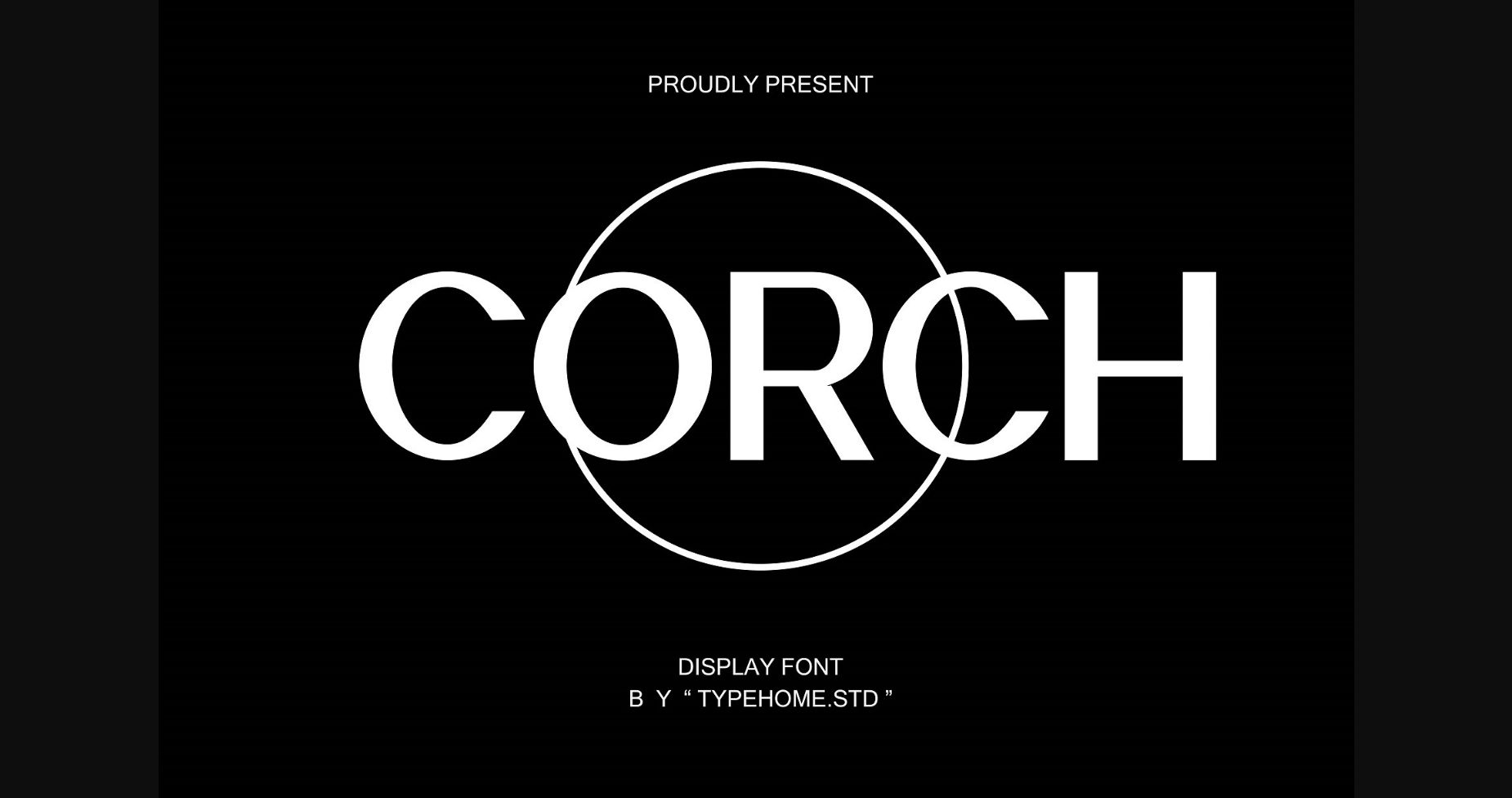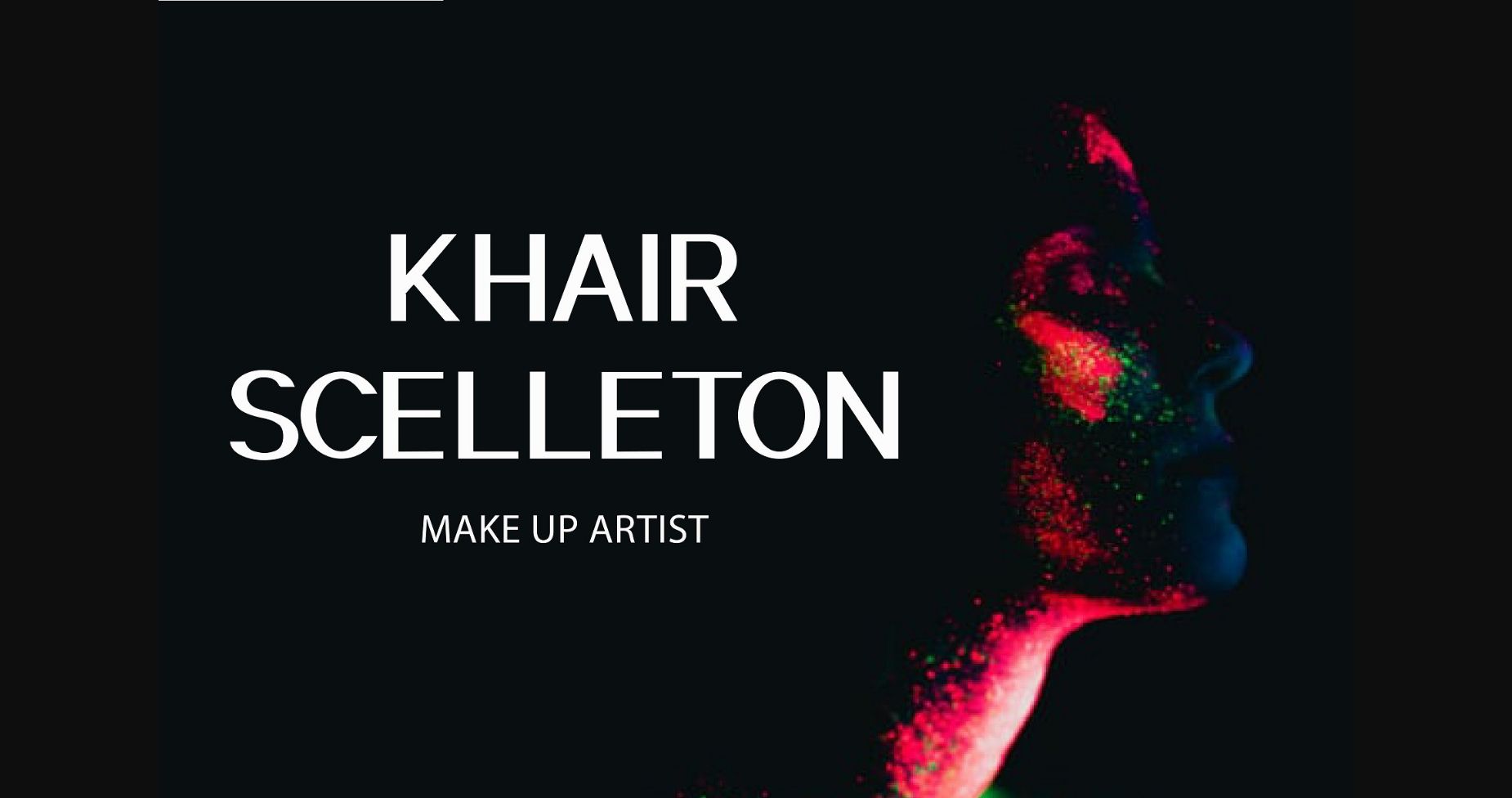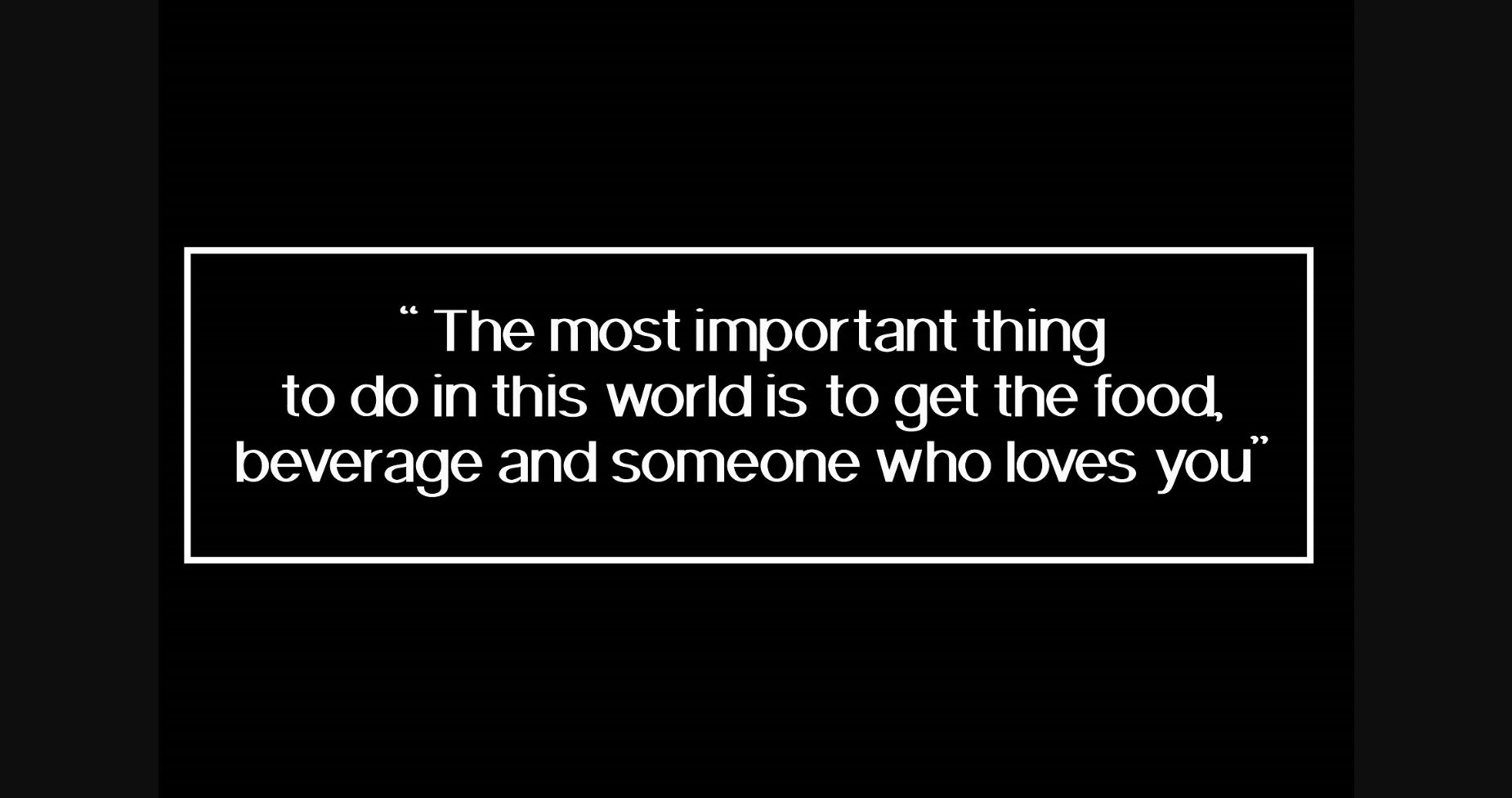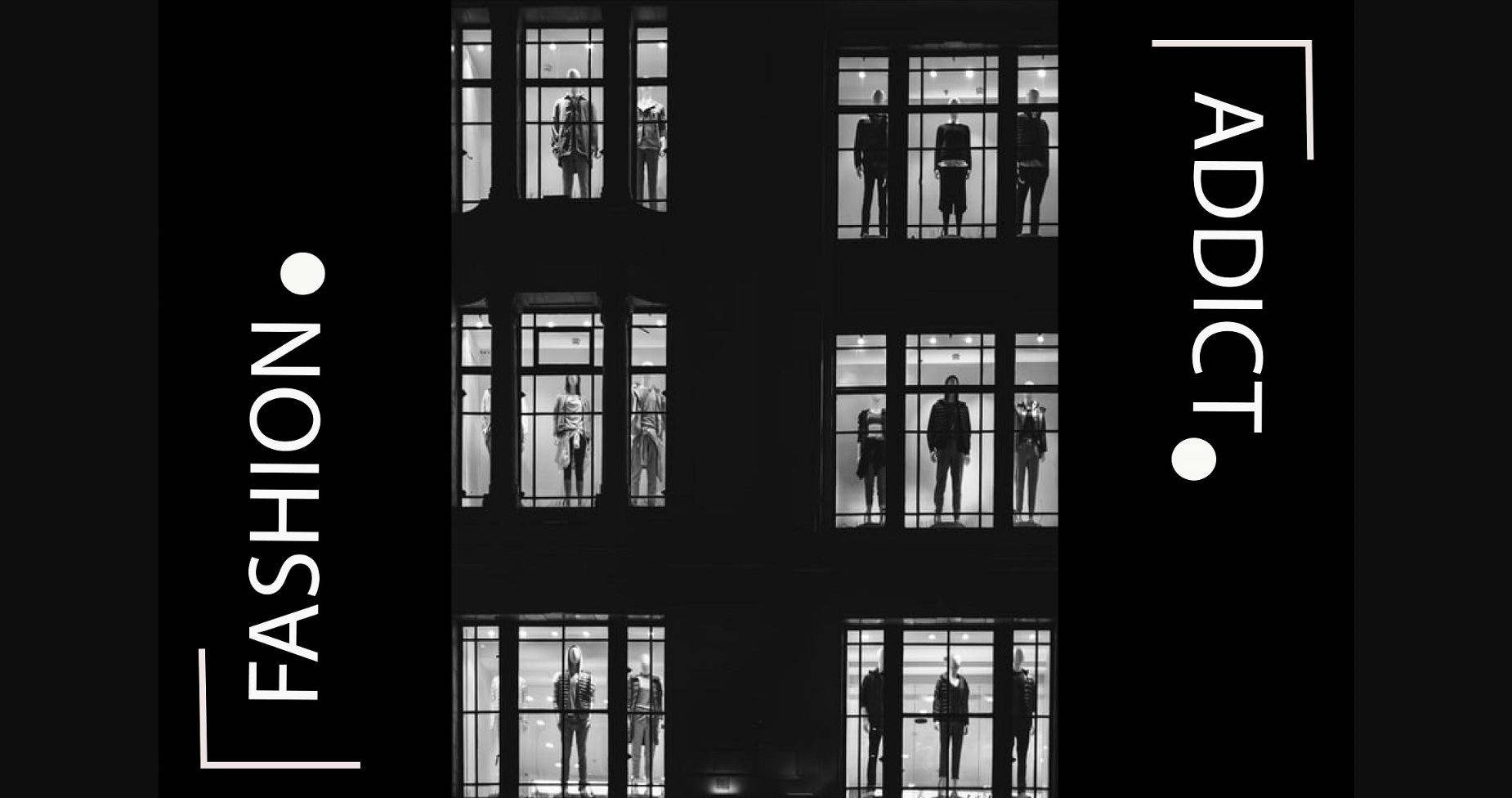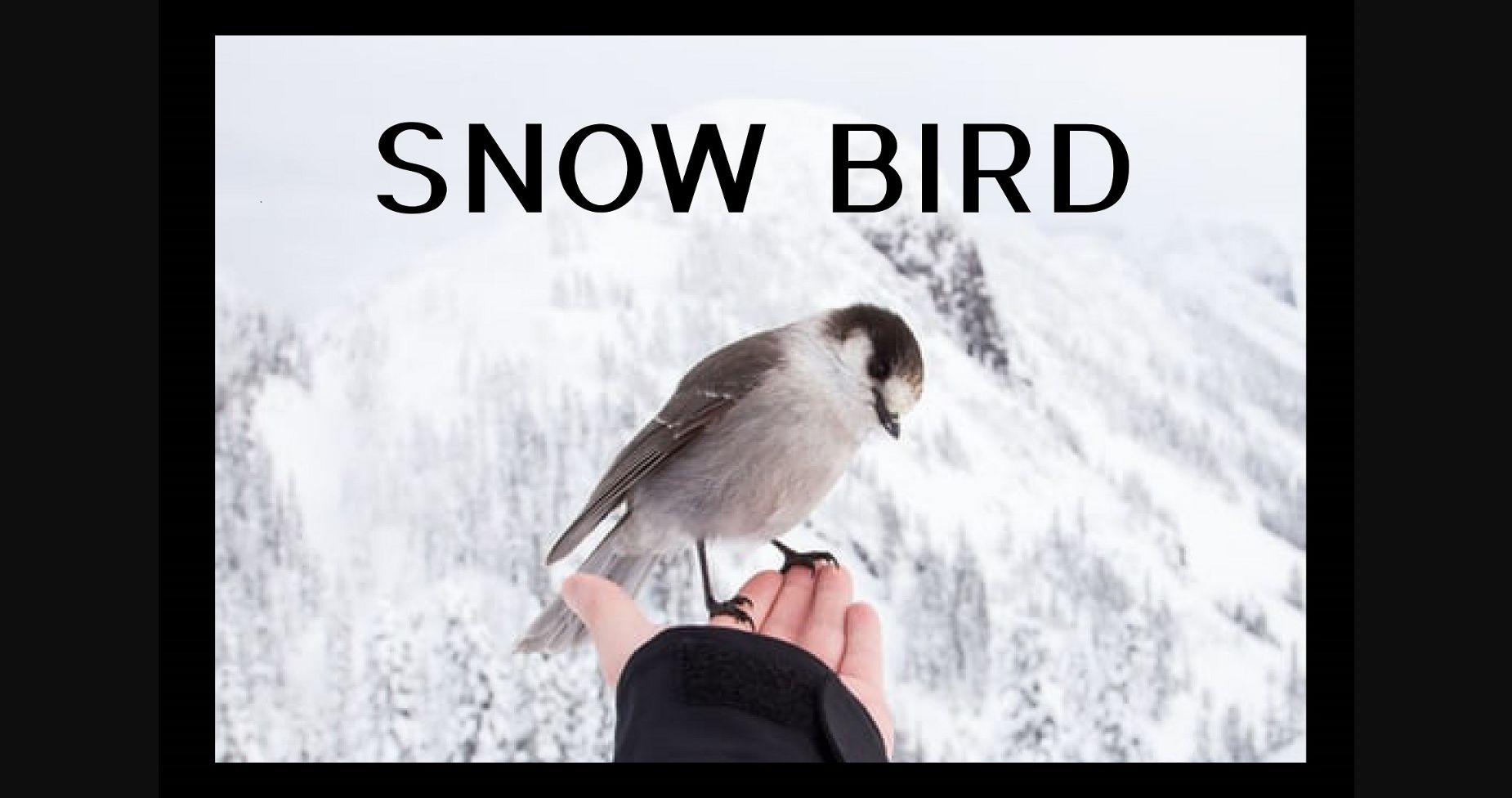
About Corch Font
Corch is a minimal and neat sans serif font. It can easily be matched to an incredibly large set of projects, so add it to your creative ideas and notice how it makes them stand out!